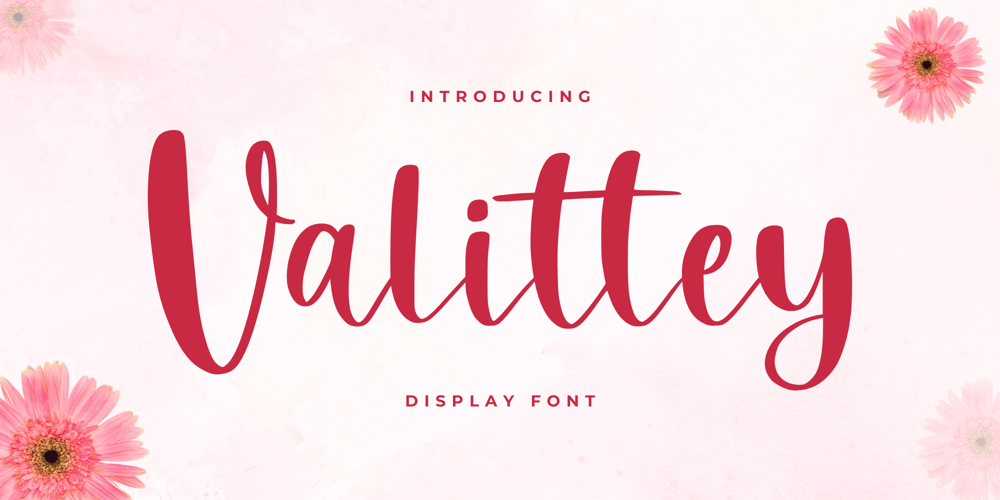
Valittey Font Family was designed by Alif Ryan Zulfikar and published by Sakha Design. Valittey contains 2 styles and family package options. Valittey is a sophisticated display font with bold characters and elegant curves. Perfect for branding, posters, and headlines, its timeless design combines modern style and classic charm, creating a striking visual impact for any creative project.